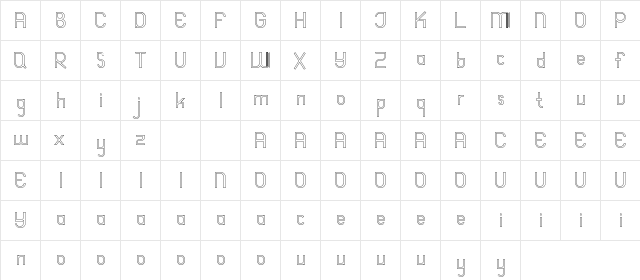
Reyburn Demo Outline Regular
Design Context for Reyburn Demo Outline Typeface
Reyburn Demo Outline is built around its visual character rather than neutral utility — its distinctive forms are designed to make an impression at display sizes.
Font Pairing: Pair with a clean neutral sans-serif for body copy to let Reyburn Demo Outline's character lead without overwhelming the composition.
Pro Tip: Use Reyburn Demo Outline exclusively at display sizes — it was designed to be seen, not read at length. Let a neutral companion handle body copy.